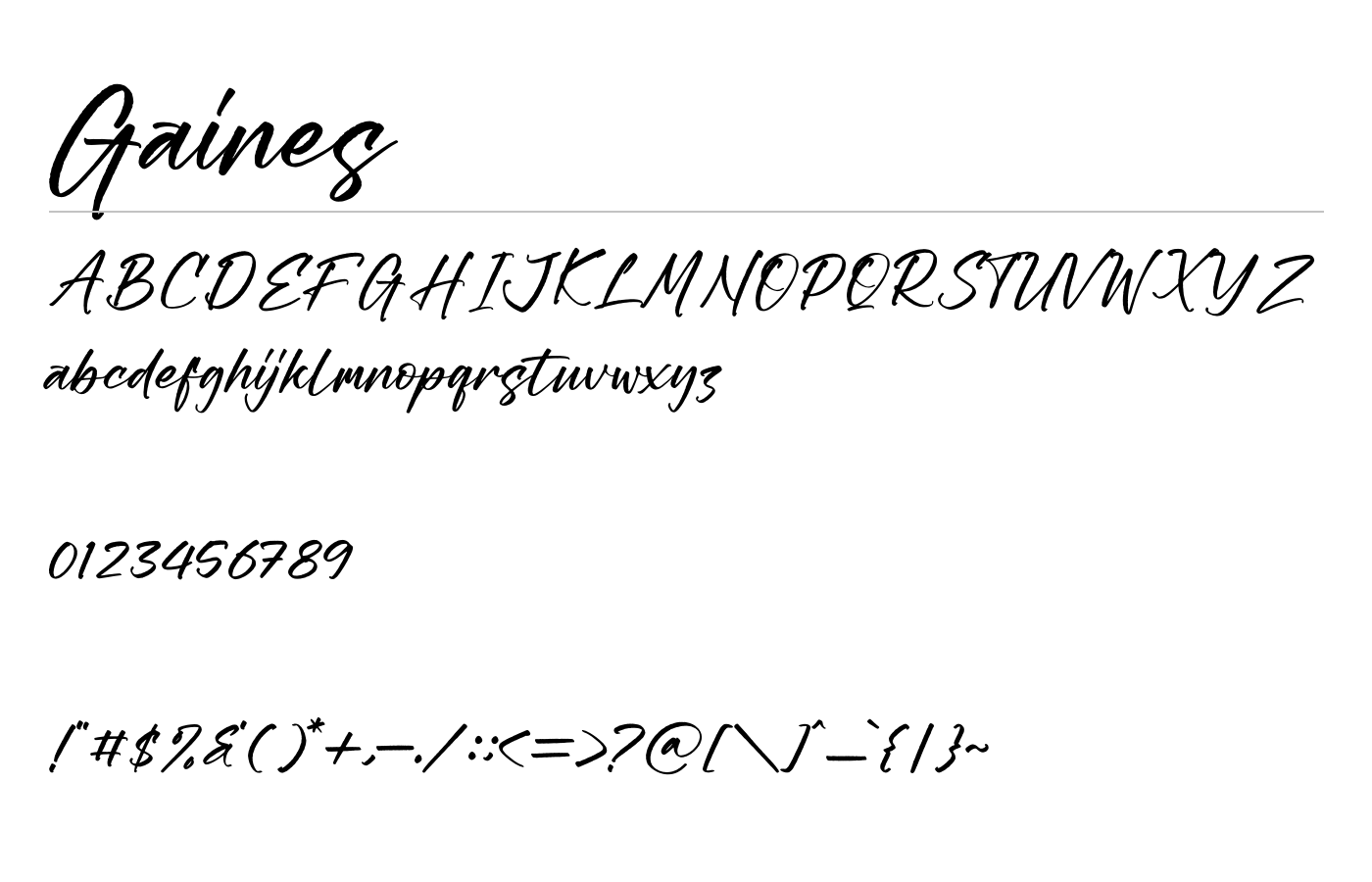
Gaines is a lively script font featuring a casual, handwritten style with smooth, flowing strokes and moderate contrast. Its elegant yet relaxed letterforms make it ideal for personal branding, invitations, and creative projects that want to convey warmth and personality. This font works well in headlines and logos where a touch of sophistication and individuality is desired.
Gaines Font
About Gaines Font